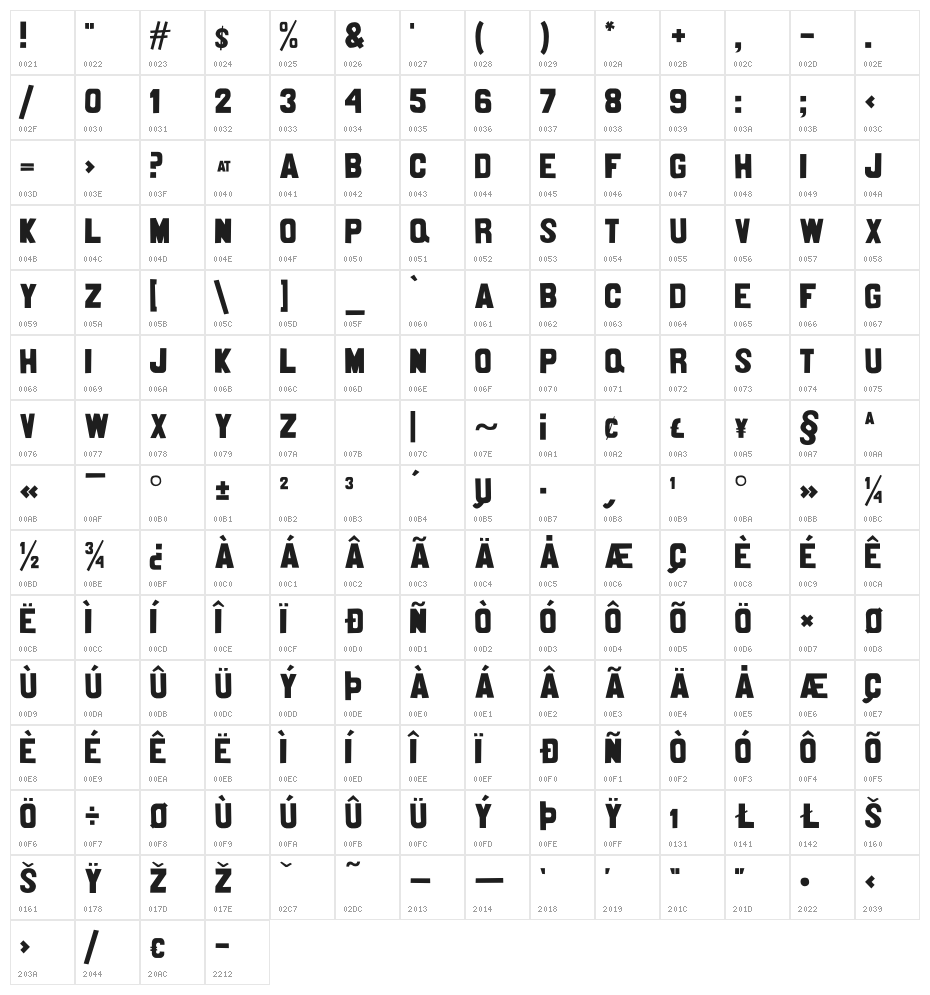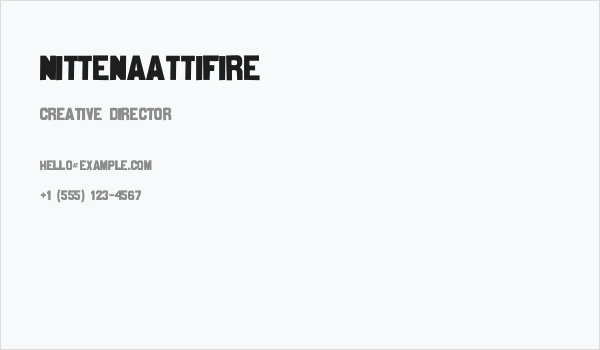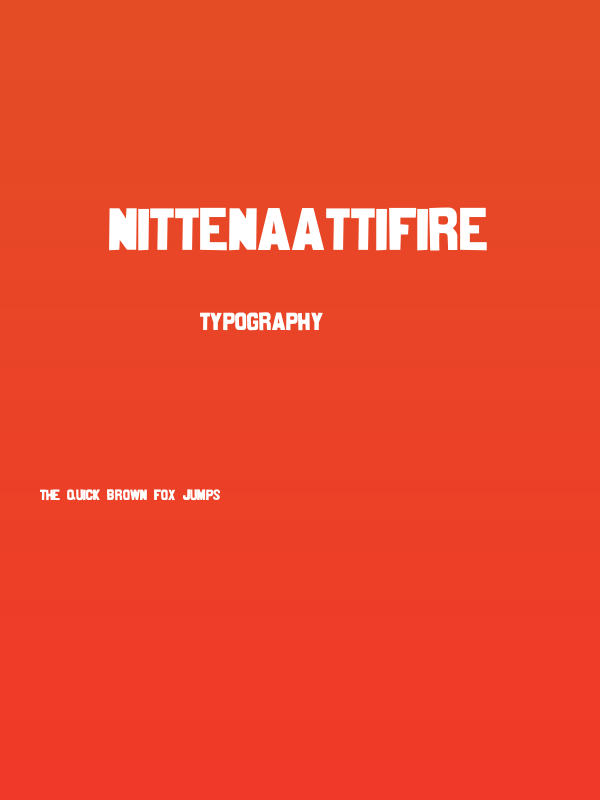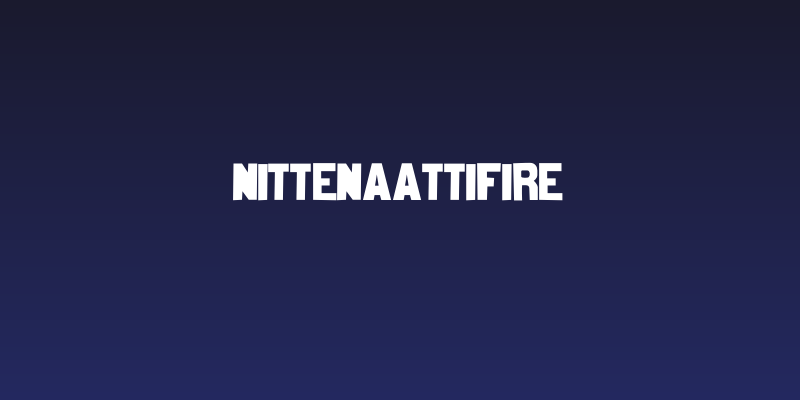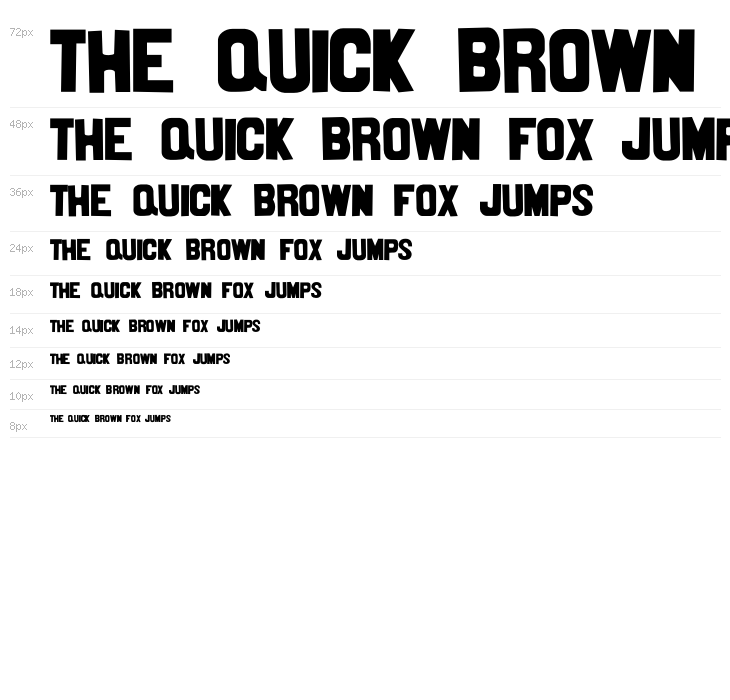
nittenaattifire Font
nittenaattifire Description
This bold and impactful font features thick, blocky characters with a strong presence. The uppercase letters are uniform in height, providing a sense of stability and strength. The numbers are equally robust, maintaining the same boldness as the letters. Special characters are designed with the same heavy strokes, ensuring consistency across all glyphs. The overall design is straightforward and assertive, making it ideal for attention-grabbing headlines or signage. The font's simplicity and weight give it a modern yet timeless appeal, suitable for a variety of design projects that require a bold statement.
| Use Case | Headlines, Logos, Signage |
| Proposed Projects | Perfect for posters, headlines, signage, branding, and any project needing a strong visual impact. |